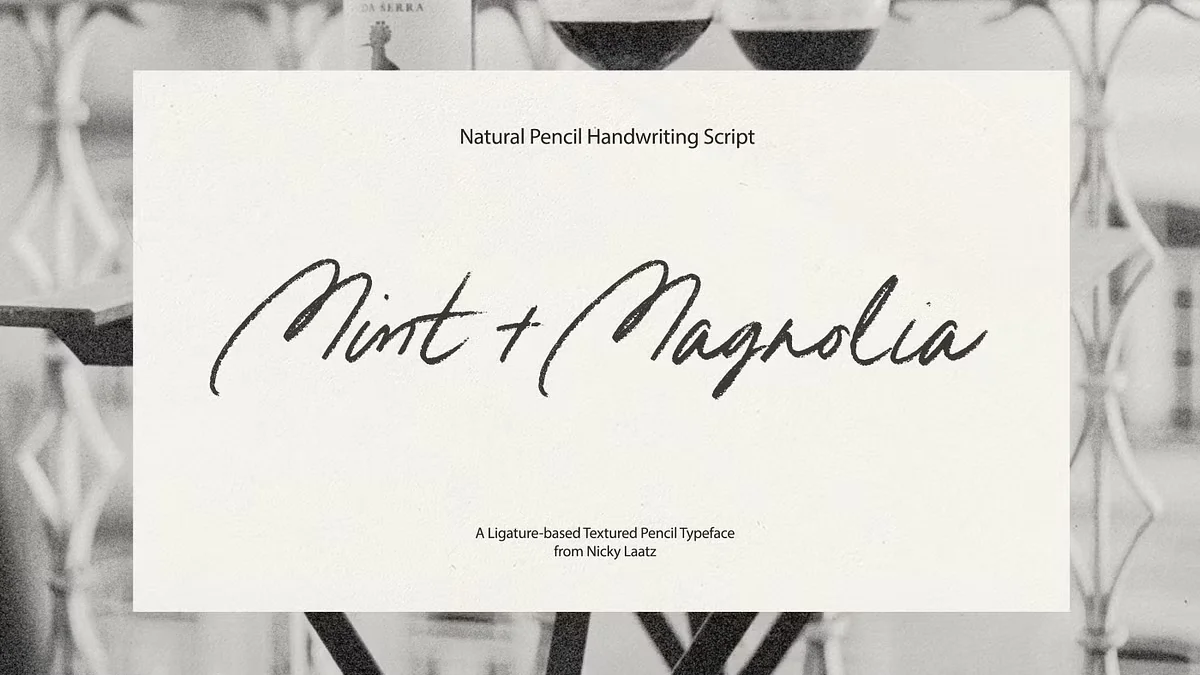
Sometimes, a typeface needs to feel personal but look professional. It should be elegant yet approachable. It’s a tough balance to strike. Well, your search might just be over. Let’s talk about a stunningly authentic typeface that has been capturing the hearts of designers everywhere: Mint + Magnolia by the brilliant Nicky Laatz. This isn’t just another script font. It’s a piece of art, meticulously crafted to feel like a real, handwritten pencil note, filled with casual charm and effortless class.
The Mint + Magnolia typeface introduces itself as a casual yet classy, handwritten pencil script. It feels warm, human, and incredibly genuine. When you see it, you don’t just see letters on a screen; you feel the subtle texture and the natural flow of a hand gliding across paper. It’s this unique quality that makes it more than a font—it’s a tool for connection. It allows your brand, your invitations, or your social media posts to speak in a voice that is both polished and deeply personal.
What Makes Mint + Magnolia So Irresistibly Charming?
At its core, Mint + Magnolia offers you beautiful versatility. It doesn’t just give you one style; it gives you two distinct personalities to play with. You get a regular version, which has an upright, friendly posture. Then, you have a slightly more oblique or slanted version. This one carries a bit more energy and forward motion. The best part? Both of these expressive styles are available in two different formats, each serving a unique purpose for your creative projects.
This thoughtful approach from Nicky Laatz means you get incredible flexibility right out of the box. Imagine designing a logo with the steady, welcoming feel of the regular version, then using the slanted version for a call-to-action on your website to create a sense of urgency. The Mint + Magnolia font family empowers you to create a cohesive yet dynamic visual language.
The Secret Ingredient: Unlocking True Authenticity with Ligatures
Here is where the real magic happens. Have you ever noticed how certain letter combinations flow seamlessly when you write by hand? Think about a double ‘l’ or a ‘th’. They connect in a unique way. The Mint + Magnolia typeface replicates this beautifully with OpenType ligatures. When you have this feature turned on in your design software (like Adobe Photoshop, Illustrator, or Affinity Designer), these specially designed letter combos appear automatically as you type.
These are not just simple connections. They are thoughtfully crafted double-letter ligatures (like ‘ss’, ‘tt’, ‘ll’, ‘rr’, ‘oo’, ‘ee’) that prevent the sterile repetition you see in lesser script fonts. Instead of two identical ‘o’s sitting side-by-side, you get a single, fluid stroke that looks completely natural. This attention to detail elevates Mint + Magnolia from a simple font to a sophisticated script that truly mimics handwriting.
The Textured Realism of the SVG Font
Included in the pack are Mint+Magnolia-SVG.otf and MintMagnolia-SVG Slanted.otf. SVG stands for Scalable Vector Graphics, but in the font world, it means something a little different. These are bitmap fonts. Think of them as high-resolution pictures of letters. What does this give you? Texture. The SVG version of Mint + Magnolia preserves every tiny graphite detail and subtle imperfection of the original pencil markings. This creates a level of realism that is simply breathtaking.
However, there’s a small catch. Because these are bitmap-based, they aren’t infinitely scalable. For the best results, Nicky Laatz recommends a print height of no more than 1cm for the uppercase letters. If you go much larger, you might start to see the pixels, and the quality could degrade. This version is perfect for smaller applications like return addresses on envelopes, delicate social media watermarks, or realistic digital signatures. Please note, the SVG version currently supports English only.
The Scalable Perfection of the Vector Font
You also get Mint+Magnolia-Regular.otf and Mint+Magnolia-Slanted.otf. These are the standard vector-based fonts you are likely familiar with. Instead of pixels, these fonts are built with mathematical paths and points. This means you can scale them to any size you want—from the tiniest print on a business card to a massive billboard—and they will remain perfectly crisp and sharp.
Ultimately, the Mint + Magnolia typeface is more than just a set of characters. It’s a tool for expression, a bridge for connection, and a shortcut to beautiful, authentic design. Whether you’re a seasoned professional or a passionate hobbyist, this font gives you the power to make your work feel more human.